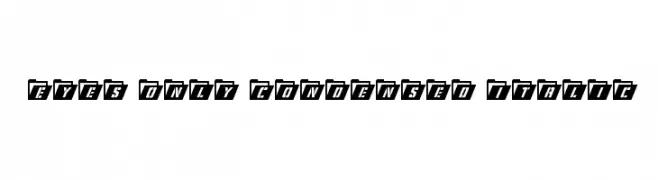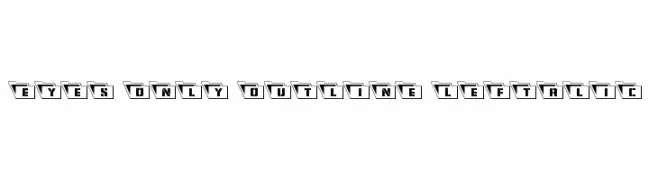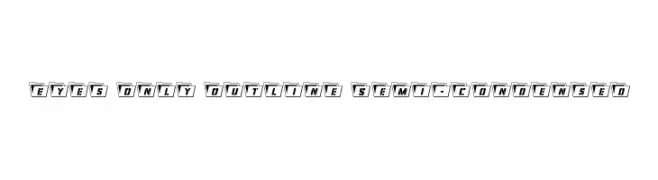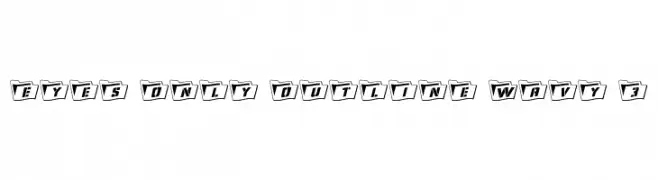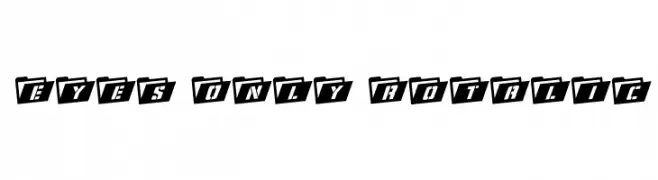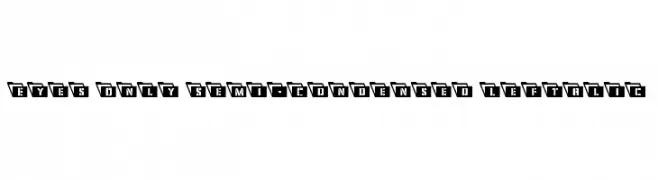
A clean, modern font with balanced structure and consistent stroke width.
An elegant and sophisticated cursive script font with decorative swirls.
A bold, expressive script font with a playful and energetic style.
A playful and whimsical script font with flowing, hand-drawn curves.
A bold, expressive script font with dynamic strokes and a handcrafted feel.
A bold, expressive script font with dynamic, flowing letterforms.
A lively and elegant script font with fluid, connected letterforms.
A modern, geometric font with bold, rounded shapes and a futuristic aesthetic.
A playful, hand-drawn font with a whimsical and friendly style.
A whimsical, hand-drawn font with a playful and enchanting style.
A playful, handwritten font with uneven strokes and a casual style.
A futuristic, geometric font with a thin, outlined design and three-dimensional effect.
A playful, handwritten font with a casual and friendly style.
A lively and elegant script font with flowing, cursive letterforms.
A sophisticated cursive script font with elegant flourishes.
A playful, decorative font with bold, rounded characters and unique cutouts.
A bold, futuristic font with sharp, angular edges and a geometric structure.
A bold, futuristic italic font with sharp, angular edges.
A bold, playful font with rounded edges and a quirky, retro-futuristic style.
Playful hand-drawn alien and monster character font.
A bold, geometric font with a futuristic and modern design.
A bold, italic, futuristic font with angular, geometric characters.
A futuristic, segmented font with a digital and geometric style.
A futuristic, geometric font with bold, angular letterforms.
A futuristic, italic font with bold, angular characters and a dynamic style.
A bold, futuristic font with sharp angles and geometric shapes.
A bold, angular font with a futuristic and aggressive design.
A bold, futuristic font with sharp angles and an italicized slant.
A bold, futuristic font with sharp angles and geometric shapes, ideal for sci-fi themes.